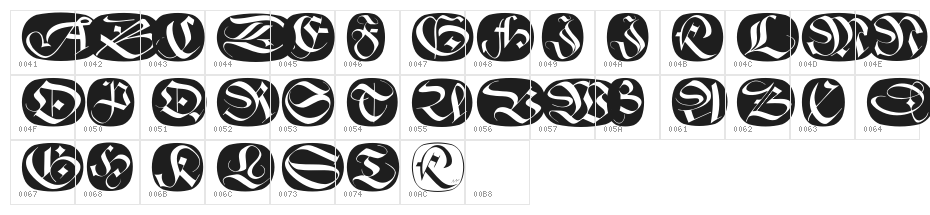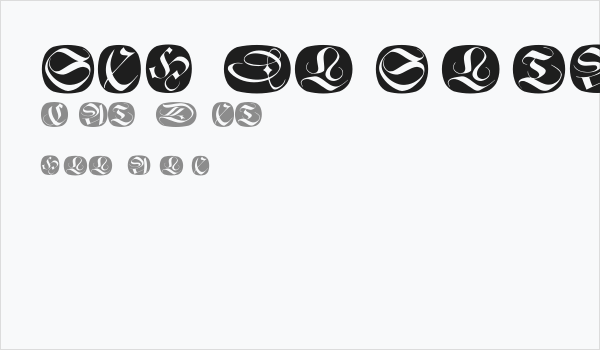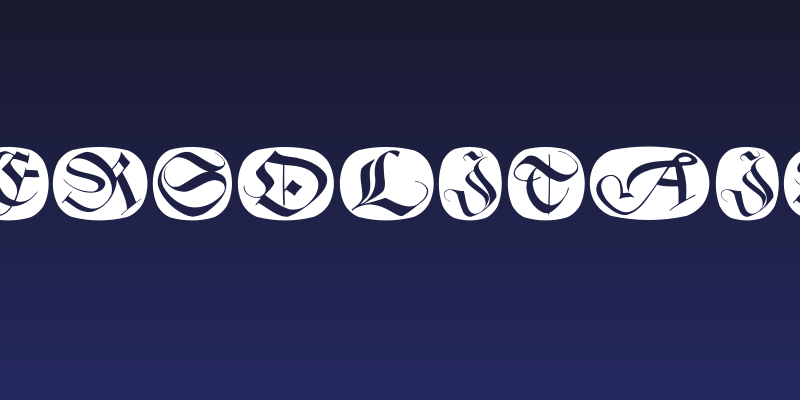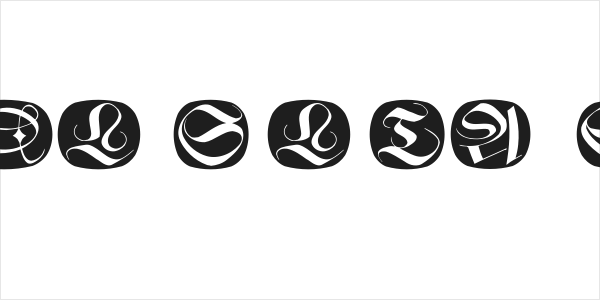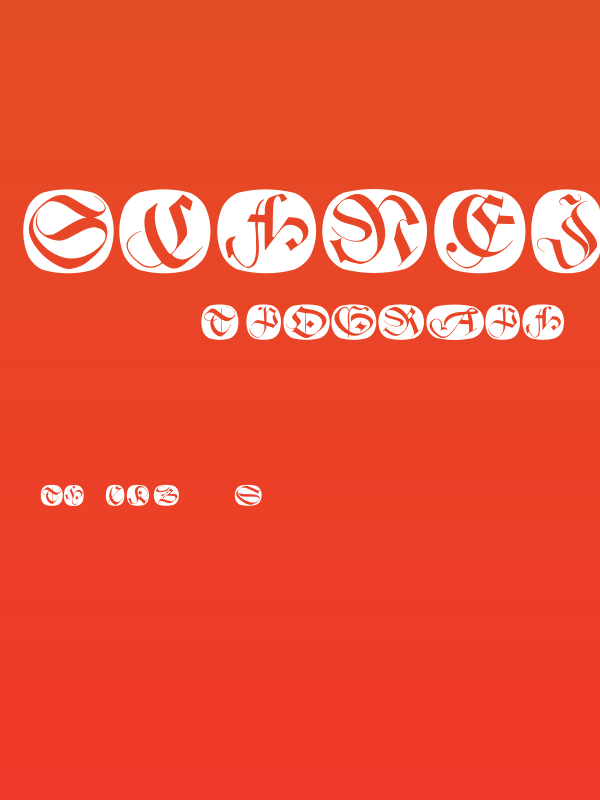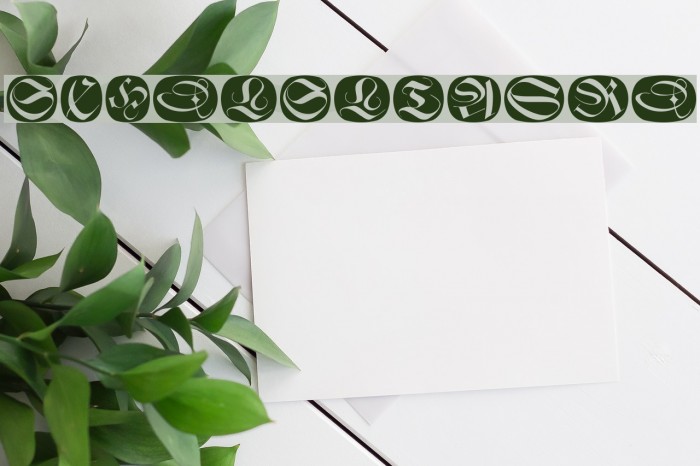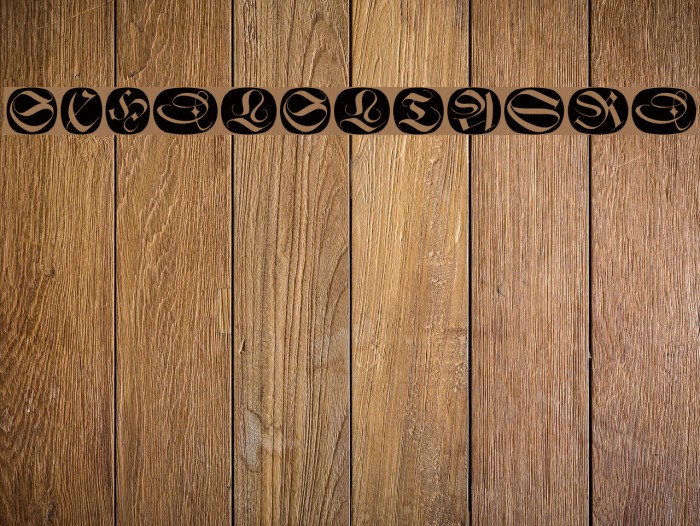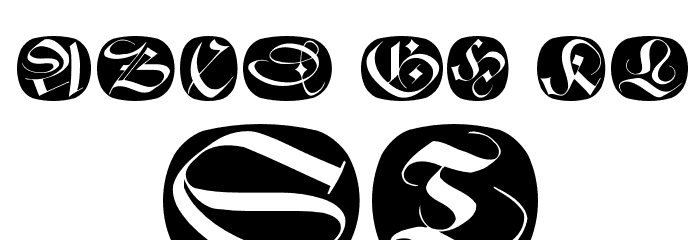
SchneidlerSolitairesRound Font
SchneidlerSolitairesRound Description
This font features a highly decorative and artistic style, characterized by its bold, swirling strokes and intricate details. Each letter is enclosed within a rounded, pebble-like shape, giving it a unique and cohesive appearance. The design incorporates elements of calligraphy and blackletter, with high contrast between thick and thin strokes, creating a dramatic and eye-catching effect. The overall aesthetic is both modern and vintage, suitable for projects that require a touch of elegance and sophistication.
| Use Case | Logos, Invitations, Artistic projects |
| Proposed Projects | Ideal for use in branding, logos, invitations, and artistic projects where a distinctive and elegant typeface is desired. |